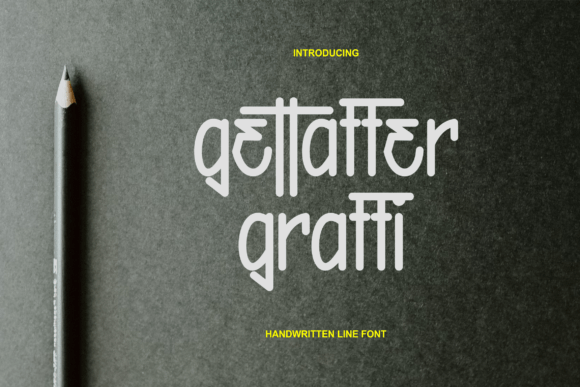
Welcome to the world of GettafferGraffi Font, the ultimate font for minimalist expression. Created with meticulous attention to detail by kalingga.albert, this modern font exudes authenticity and boldness in every character. Say goodbye to bland and conventional fonts and embrace the expressive power of GettafferGraffi. Whether you're a seasoned designer or just starting, this font is your gateway to creating captivating visuals that leave a lasting impression.
Unleash your creativity with GettafferGraffi's captivating ligatures and stylish alternates. Its unique design adds a touch of elegance and charm to any project, from logos and branding to esport designs and more. The font's versatility knows no bounds, making it an essential tool for designers seeking to make a statement.
Immerse yourself in the world of typography with GettafferGraffi, the font that truly understands the essence of minimalism. Its carefully crafted characters dance effortlessly across the page, capturing the attention of your audience. With its bold strokes and captivating curves, GettafferGraffi transforms your words into art, leaving an indelible mark on your designs.
Take your projects to new heights with GettafferGraffi, the font designed to make your creative dreams a reality. Its versatility and emotional depth make it the perfect choice for designers seeking to connect with their audience on a profound level. Every curve, every stroke, every letterform is meticulously crafted to convey a message of authenticity and boldness that resonates with your audience.
With GettafferGraffi Font, you possess the power to turn your creative visions into tangible masterpieces. Whether you're crafting a logo that exudes confidence or designing an esport banner that demands attention, GettafferGraffi is your faithful companion in the realm of typography. Let its unique charm ignite your imagination and unlock a world of creative possibilities.